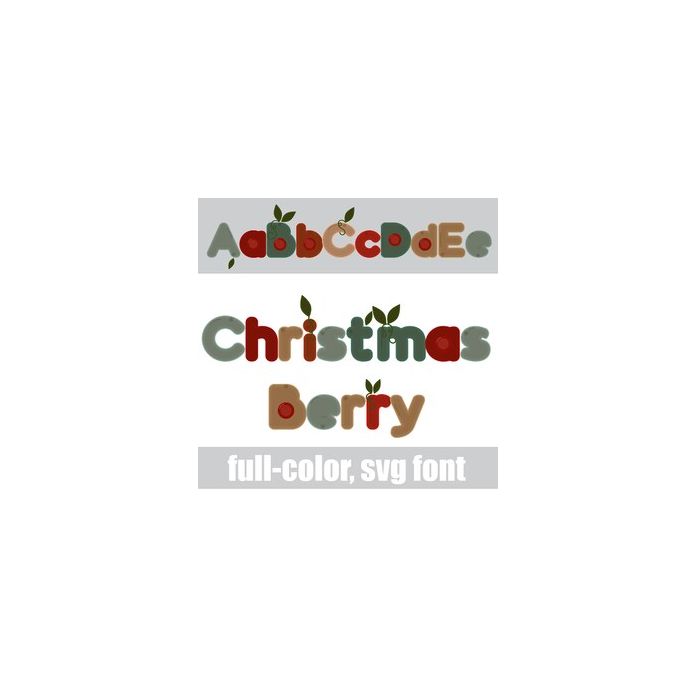
This full-color font features berries, leaves, and vines in a Christmas color palette. There is an alt case w/ additional colors you can access through your system or Silhouette's glyph map.